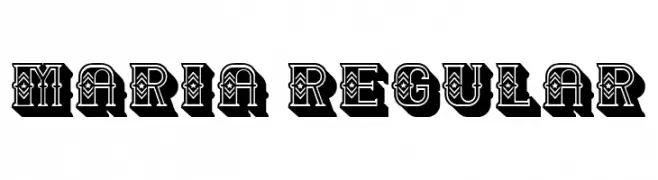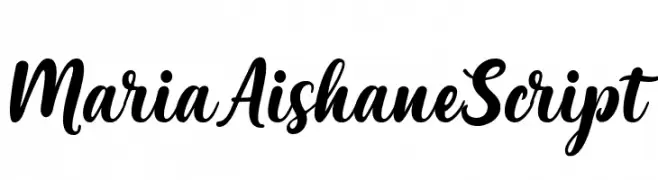
An elegant script font with flowing, calligraphic style and bold strokes.
An elegant and flowing script font with ornate, cursive letterforms.
A bold, geometric font with a futuristic and angular design.
A bold, decorative font with intricate, vintage-inspired details.
A playful, hand-drawn outlined font with a bold and whimsical style.
A playful, bold outline font with a hand-drawn, cartoonish style.
A bold and elegant script font with smooth, flowing strokes.
An elegant cursive font with decorative flourishes and a sophisticated style.
A refined and elegant script font with flowing, interconnected letters and decorative flourishes.